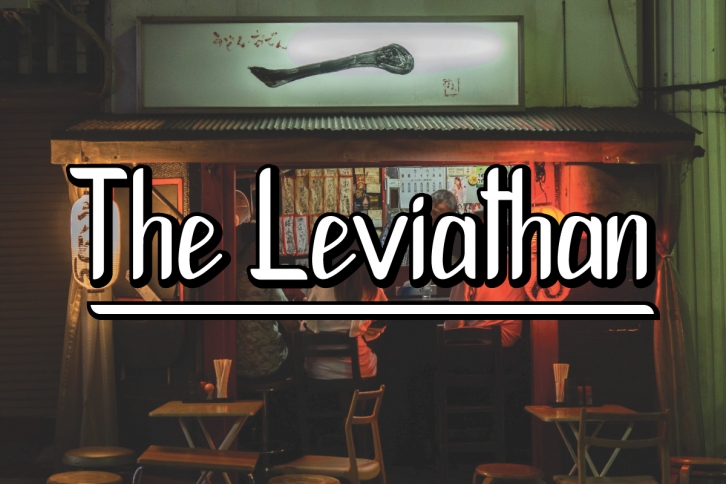
The Leviathan is a trendy and unique font with an authentic style. It was designed by Noschey and it's a great choice for creative people who need such a font. It was released on August 26, 2018 and the file size is 19.81 MB. The Leviathan will add an organic vibe to any design idea!